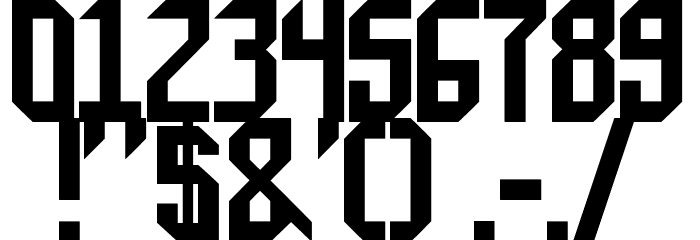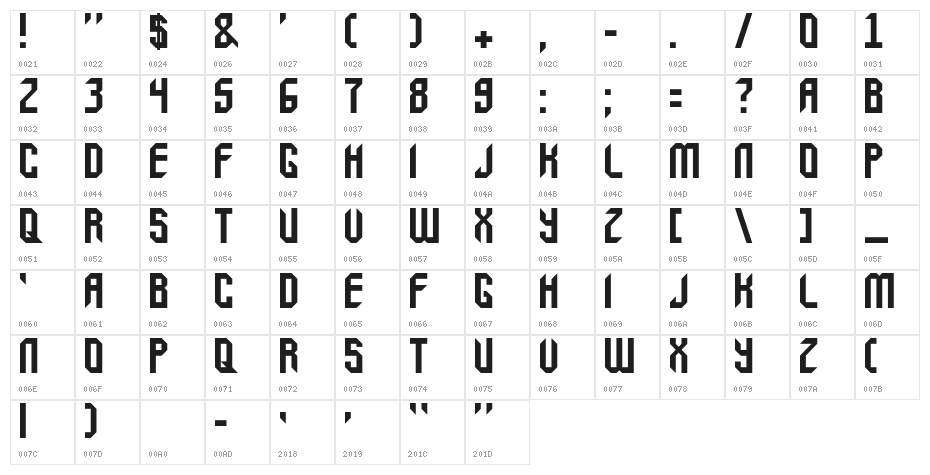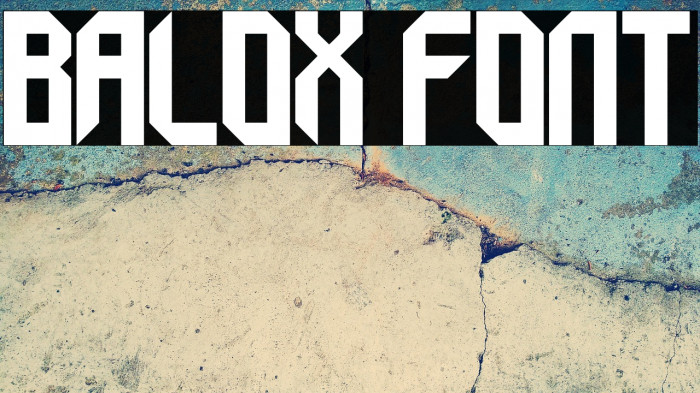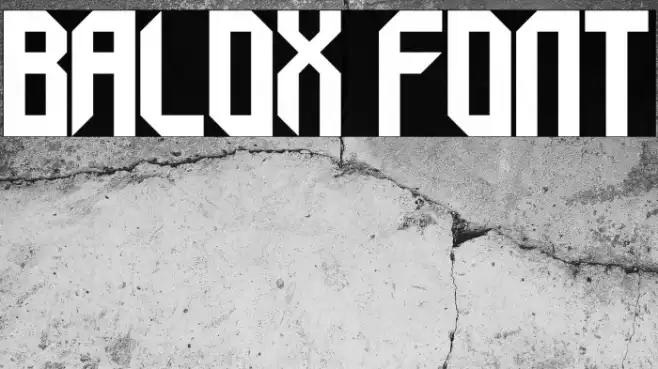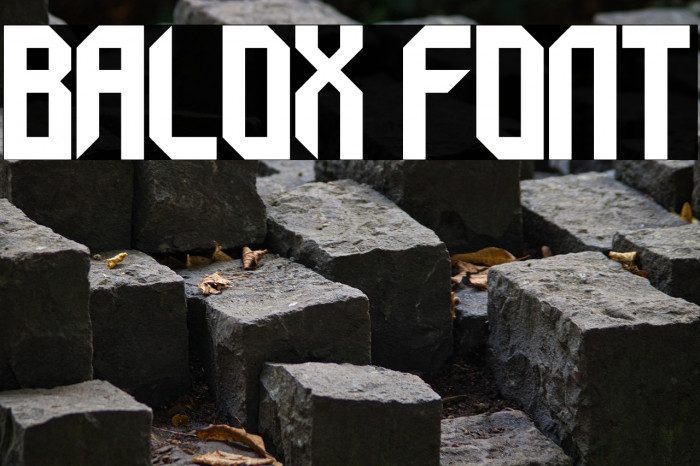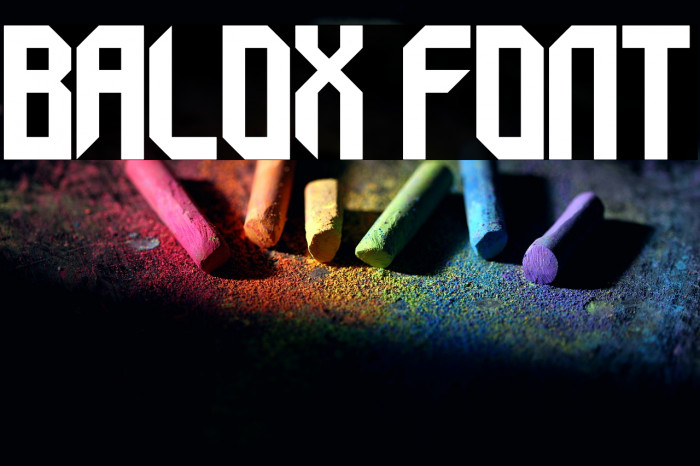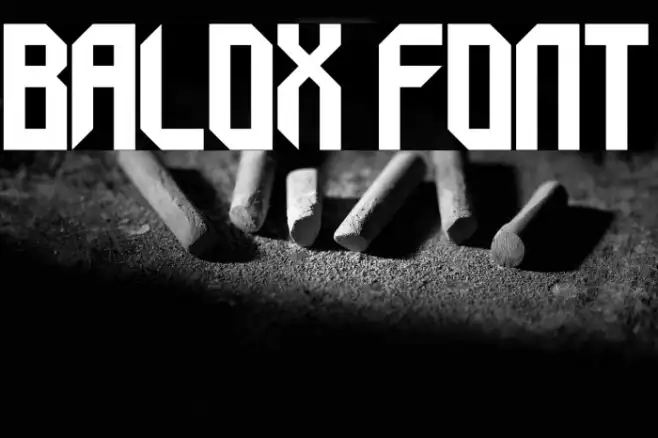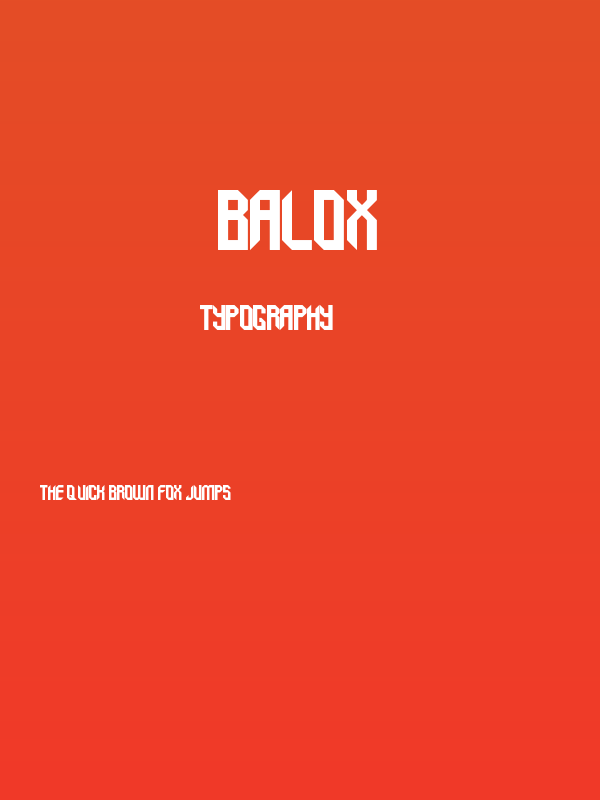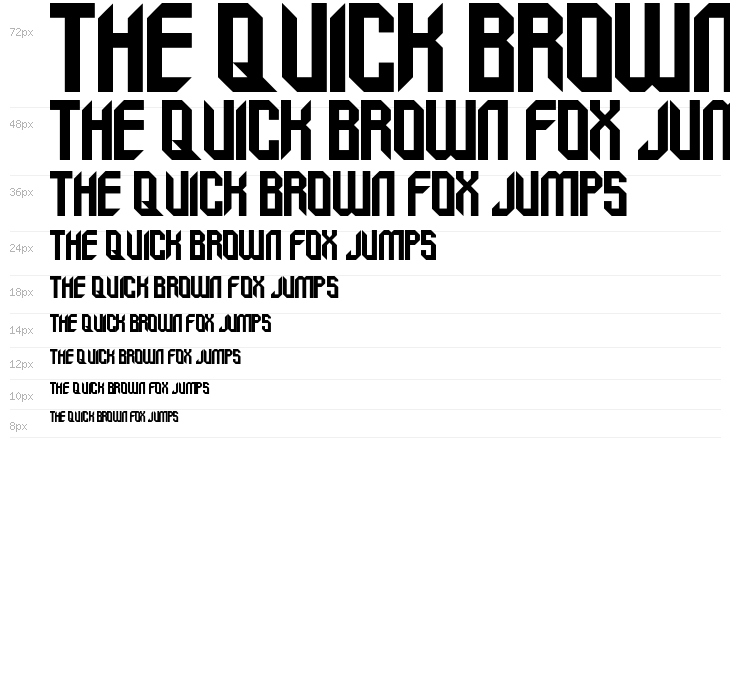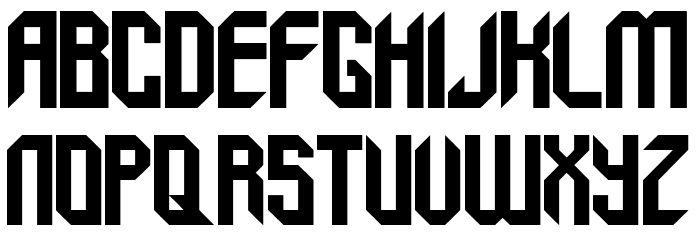
Balox Font
Balox Description
This font features a bold and geometric design, characterized by sharp angles and a blocky structure. The uppercase and lowercase letters maintain a consistent height, creating a uniform appearance. The numerals and special characters follow the same angular style, enhancing the cohesive look of the typeface. The font's design is reminiscent of digital or futuristic themes, with a strong emphasis on straight lines and sharp corners. Its bold presence makes it suitable for attention-grabbing headlines or titles. The uniformity in stroke width across all characters contributes to a clean and modern aesthetic.
| Proposed Projects | Ideal for digital designs, tech-themed projects, video game graphics, or futuristic branding. |